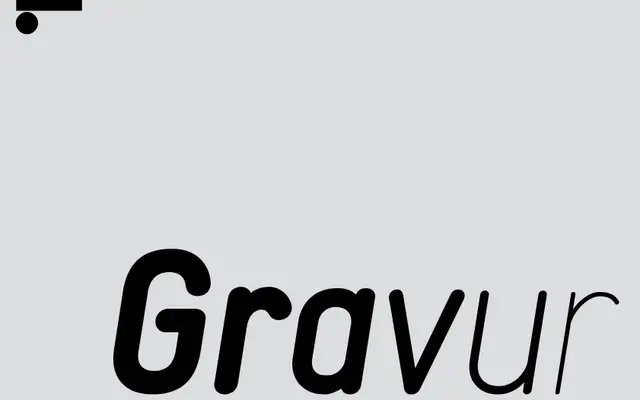
Gravur
A Swiss grotesque from Lineto with a prominent condensed family, shown extensively in pharmaceutical and corporate typesetting contexts.
The family includes condensed and italic cuts, with specimen copy drawn from pharmaceutical corporations such as Bayer, Novartis and Pfizer, suggesting its intended territory of corporate and scientific communication. The condensed variant is shown at both display and text sizes, carrying technical product names and dense body copy with equal composure. A workmanlike grotesque that earns its keep in information-heavy, institutional settings rather than expressive or editorial ones.
Gravur is a Swiss-influenced grotesque sans-serif with condensed cuts and thin weights, sitting within the neutral European grotesque tradition suited to corporate and pharmaceutical contexts.